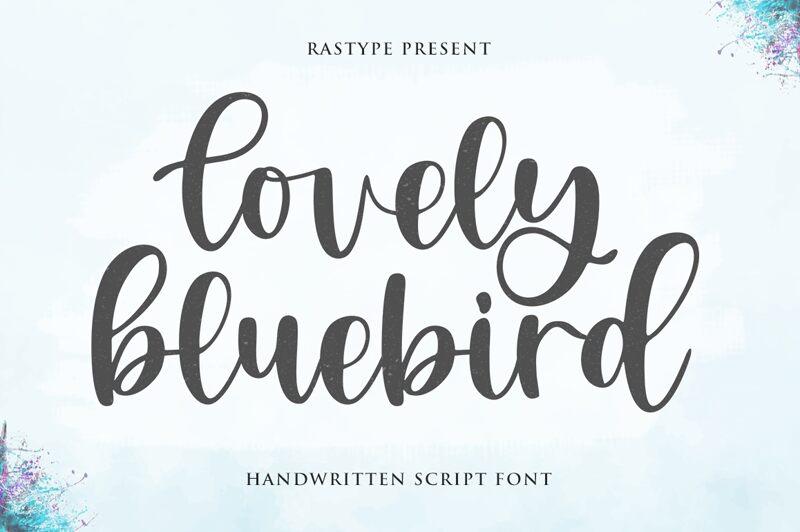
Lovely Bluebird, designed by Rastype, brings the charm of handwritten intimacy to any project. With its fluid and expressive strokes that mimic the natural variations of cursive script, this font exudes a personal touch that is both elegant and accessible. The subtle irregularities in line thickness and the gentle flow between letters capture the essence of handcrafted artistry.
Ideal for designs that require a touch of warmth and personality, Lovely Bluebird's aesthetic appeal lies in its perfect imperfection. It lends itself beautifully to invitations, greeting cards, branding materials, and more-anywhere you wish to convey sincerity and a bespoke feel. Its style bridges casual elegance with a modern twist, making it an exceptional choice for creators seeking to infuse their work with heartfelt character.